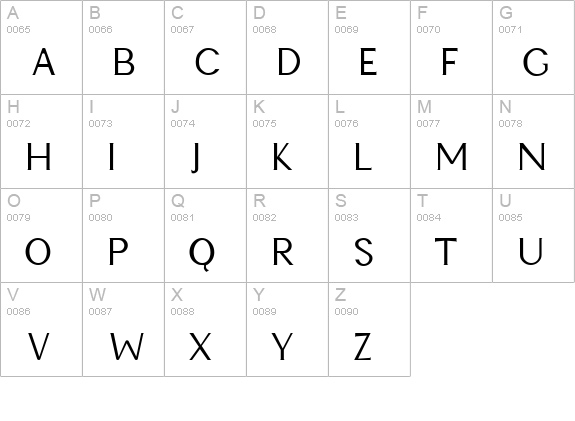
RSKathlita Medium is a balanced, medium-weight variant in the RSKathlita typeface family \xE2\x80\x94 well suited to sub-headlines, navigation, and balanced editorial work.
RSKathlita Medium is a stylish and versatile font that strikes the perfect balance between modernity and elegance. With its clean lines and subtle curves, this font is ideal for a wide range of design projects, from logos to branding to print materials. The medium weight of the font gives it a bold presence while still maintaining a sense of sophistication. What sets RSKathlita Medium apart is that it is available for free download at FontsMarket.com. This means that you can easily access this high-quality font without any cost, making it a valuable addition to your design toolkit. Whether you're a professional designer or a creative enthusiast, RSKathlita Medium is sure to enhance your projects with its timeless appeal and versatility.